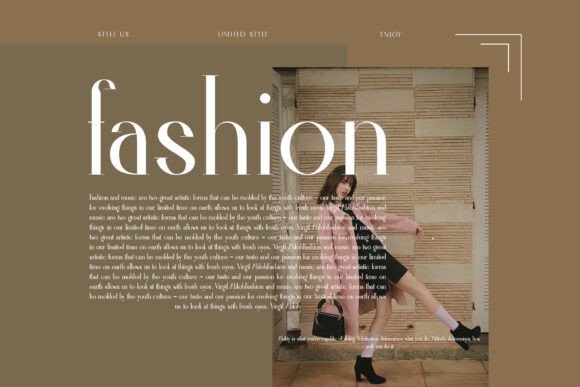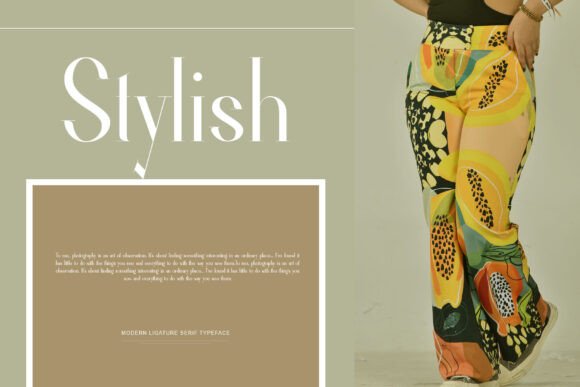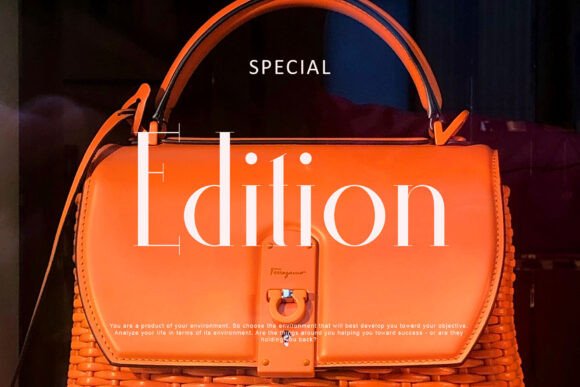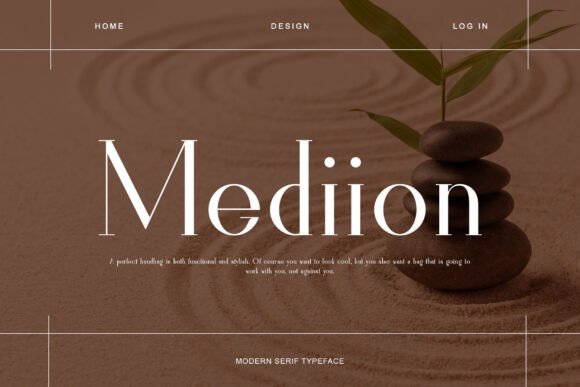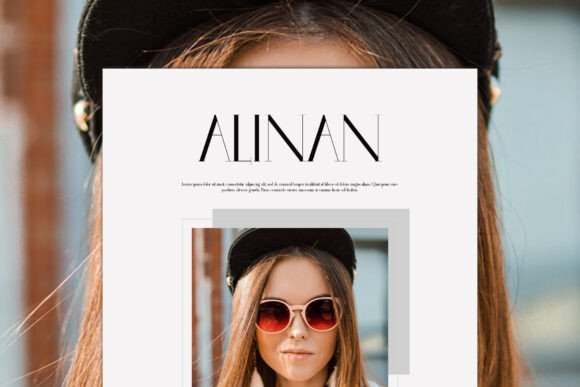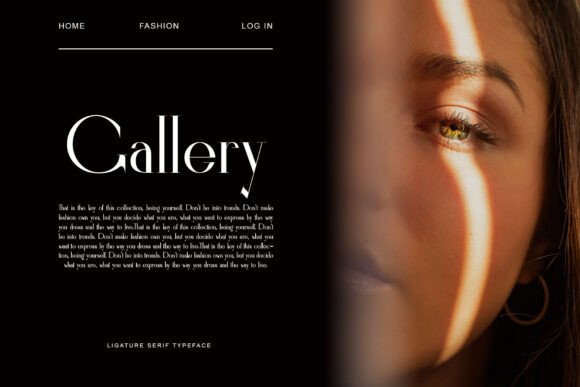
Fugo Font: Elevate Your Designs with Elegance and Class
In the world of typography, a font can make or break a design. For designers and crafters seeking to add a touch of sophistication and style to their work, the Fugo Font is an excellent choice. This elegant and classy serif typeface is perfect for those looking to infuse their designs with a sense of modernity and nostalgia.
The Characteristics of Fugo Font
Fugo is a thoughtfully crafted font that seamlessly blends modern and classic elements. Its serif design gives it a timeless feel, while its clean lines and precise curves ensure it remains contemporary and versatile. This font is meticulously designed to be both nostalgic and modern, making it suitable for a wide range of applications.
Perfect for Various Applications
Whether you’re working on a logo, magazine, or social media content, Fugo is an excellent choice. Its elegant and classy appearance makes it perfect for:
- Logos: Create a lasting impression with a sophisticated logo that exudes style and class.
- Magazines: Add a touch of elegance to your magazine layouts and make your content stand out.
- Social Media: Elevate your social media posts and stories with a font that commands attention and respect.
Why Choose Fugo Font?
Fugo is more than just a font; it’s a design solution that offers:
- Elegance: Add a touch of sophistication to your designs with Fugo’s elegant serif design.
- Style: Stand out from the crowd with a font that exudes style and class.
- Modernity: Stay ahead of the curve with a font that is both modern and nostalgic.
- Versatility: Use Fugo across various platforms and applications, from print to digital.
Ready to Use
One of the best things about Fugo is that it’s already perfectly paired and ready to use for your next design. This means you can:
- Save Time: No need to spend hours pairing fonts or adjusting settings.
- Streamline Your Workflow: Get straight to designing with a font that is ready to use.
- Focus on Creativity: With Fugo, you can focus on the creative aspects of your design rather than the technicalities.
Who is Fugo Font for?
Fugo is designed for anyone looking to add a touch of elegance, style, class, chic, and modernity to their designs. This includes:
- Graphic Designers: Take your designs to the next level with a font that exudes sophistication.
- Crafters: Add a professional touch to your craft projects with Fugo’s elegant design.
- Marketers: Create compelling marketing materials that stand out with Fugo’s classy appearance.
In conclusion, the Fugo Font is an excellent choice for designers and crafters seeking to elevate their designs with elegance and class. With its perfect blend of modernity and nostalgia, Fugo is suitable for a wide range of applications. Whether you’re working on a logo, magazine, or social media content, Fugo is ready to help you create stunning designs that command attention and respect.